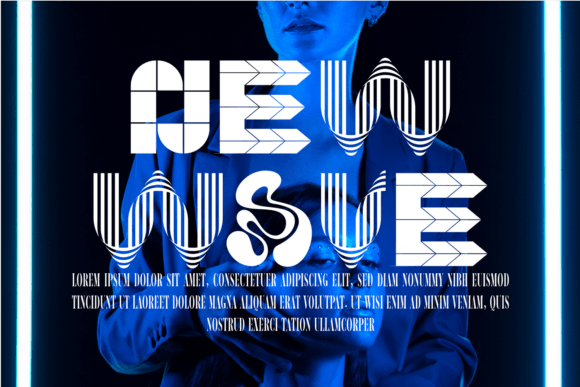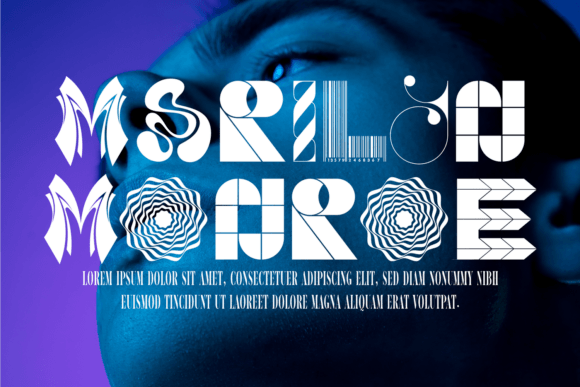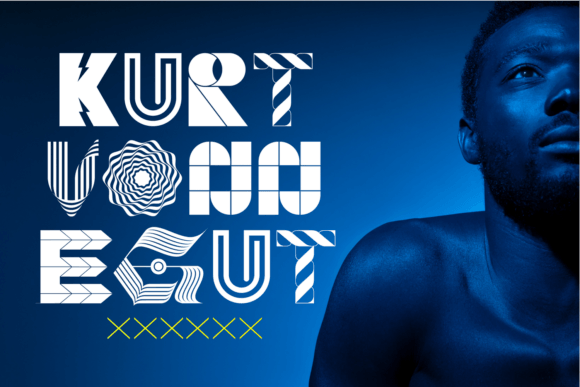
Introduction to Fresh World Font
Fresh World is a futuristic font inspired by the world of technology and robotics.
Its sleek and stylish design evokes a sense of innovation and progress, making it perfect for your next display, logotype, or movie display Add it to your most creative ideas and notice how it makes them come alive.
Fresh World Font offers exceptional quality and versatility, making it a valuable addition to your design toolkit. Whether you’re creating for personal projects or commercial use, Fresh World Font delivers professional results.